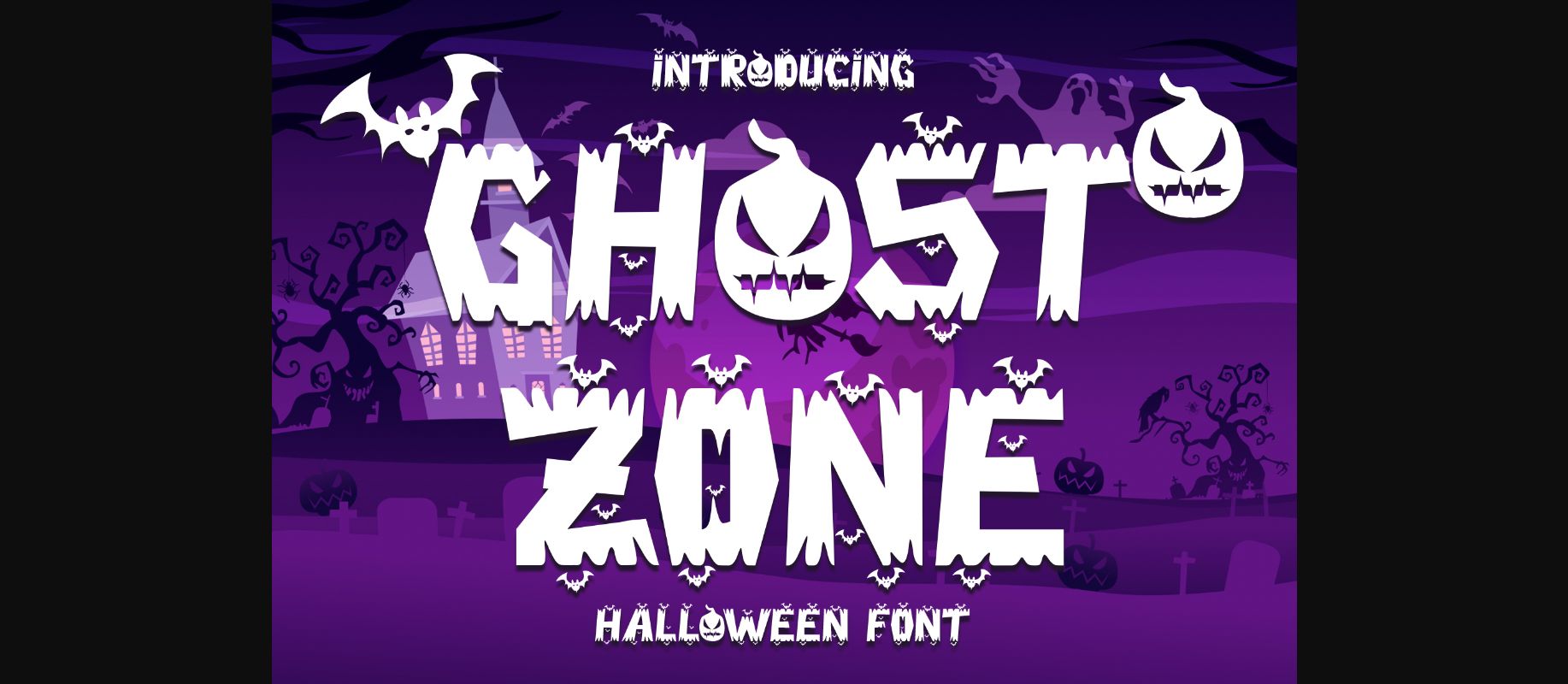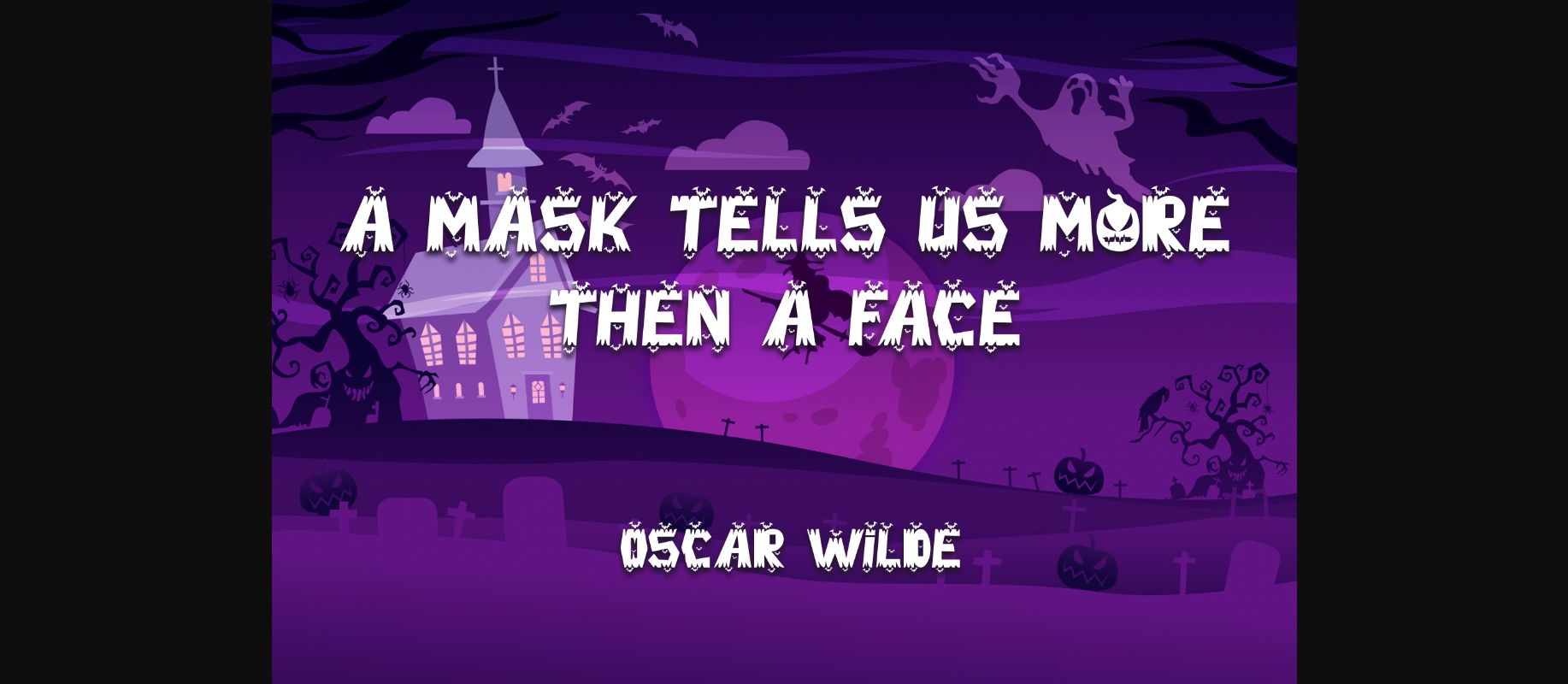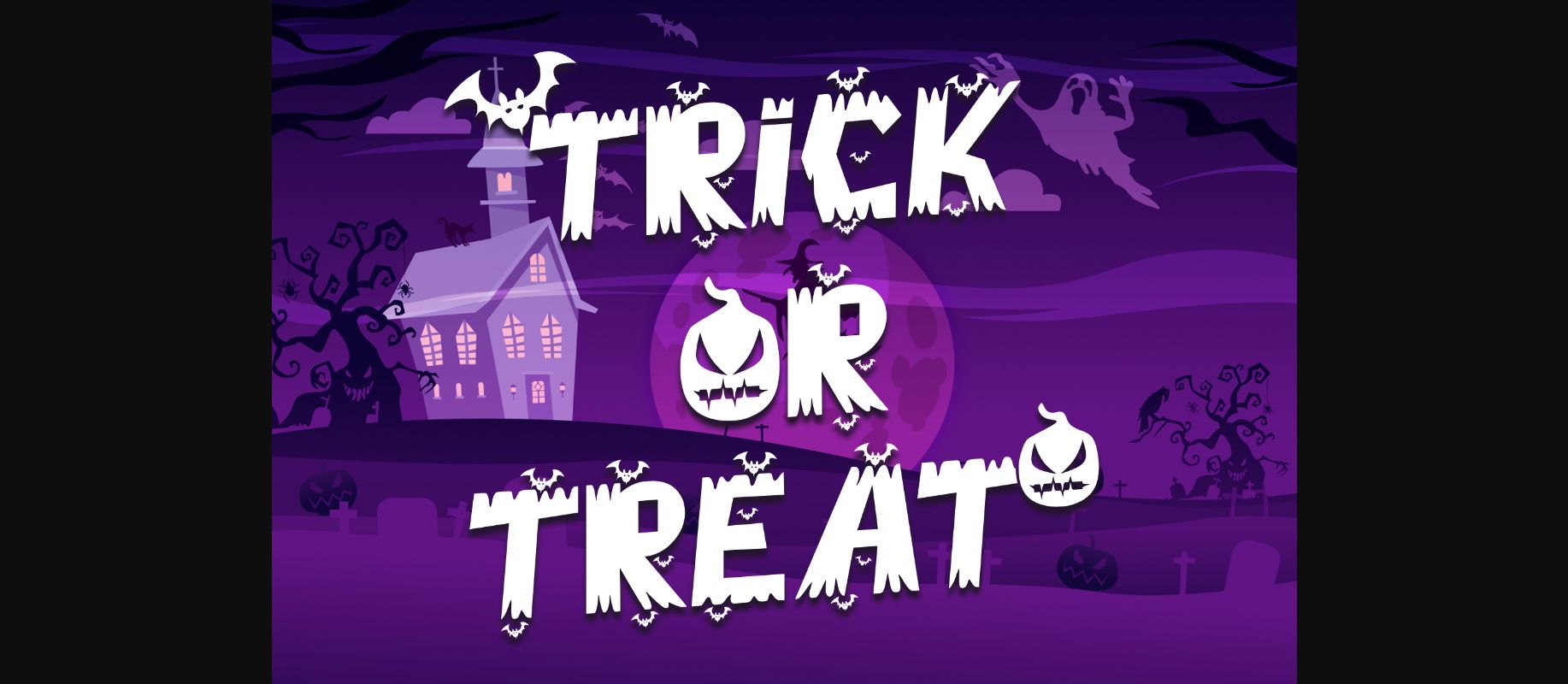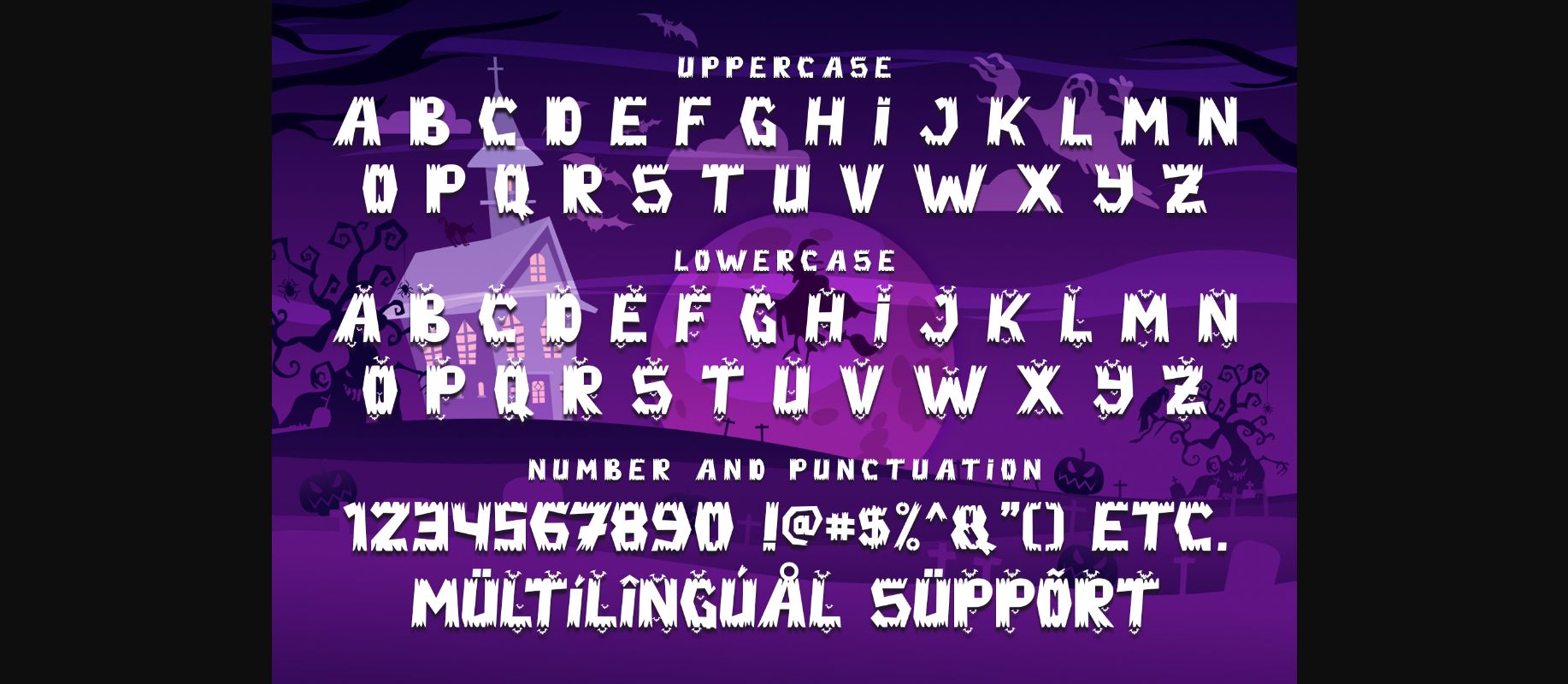
About Ghost Zone Font
Ghost Zone Is a fun, quirky and spooky decorative font. This font is PUA encoded which means you can access all of the glyphs and swashes with ease!